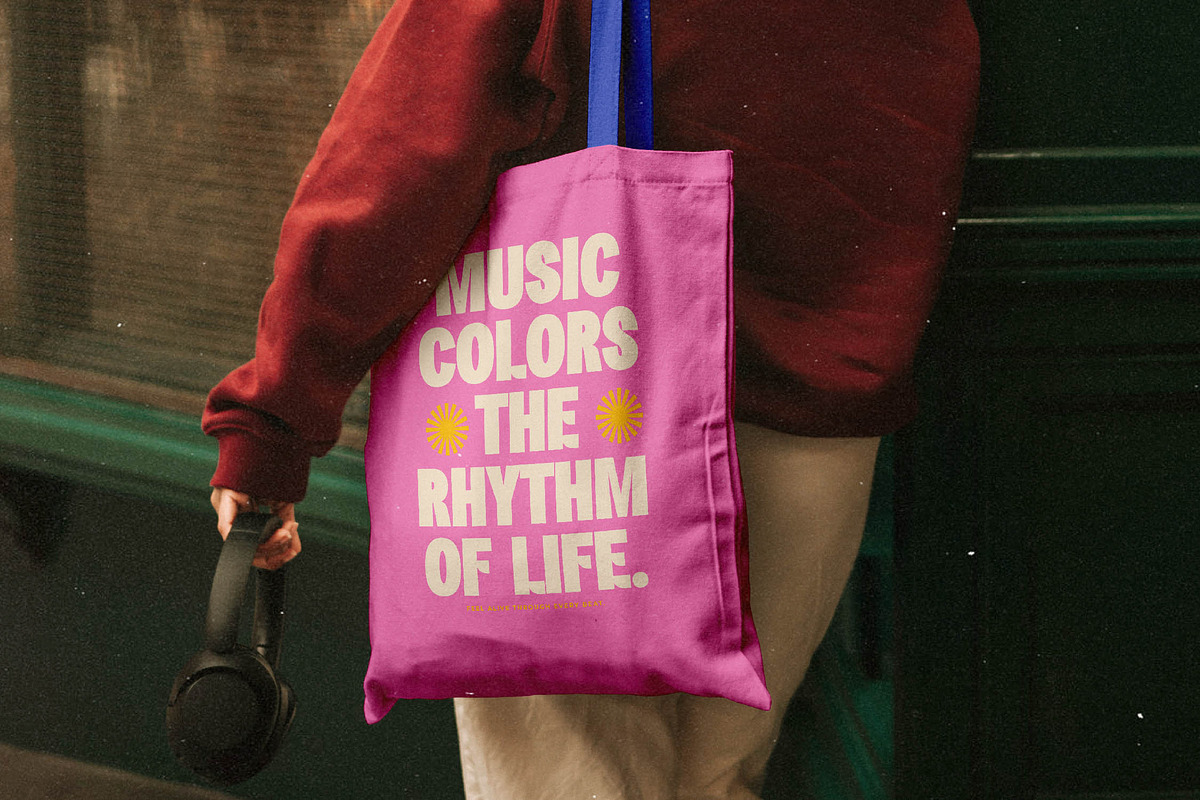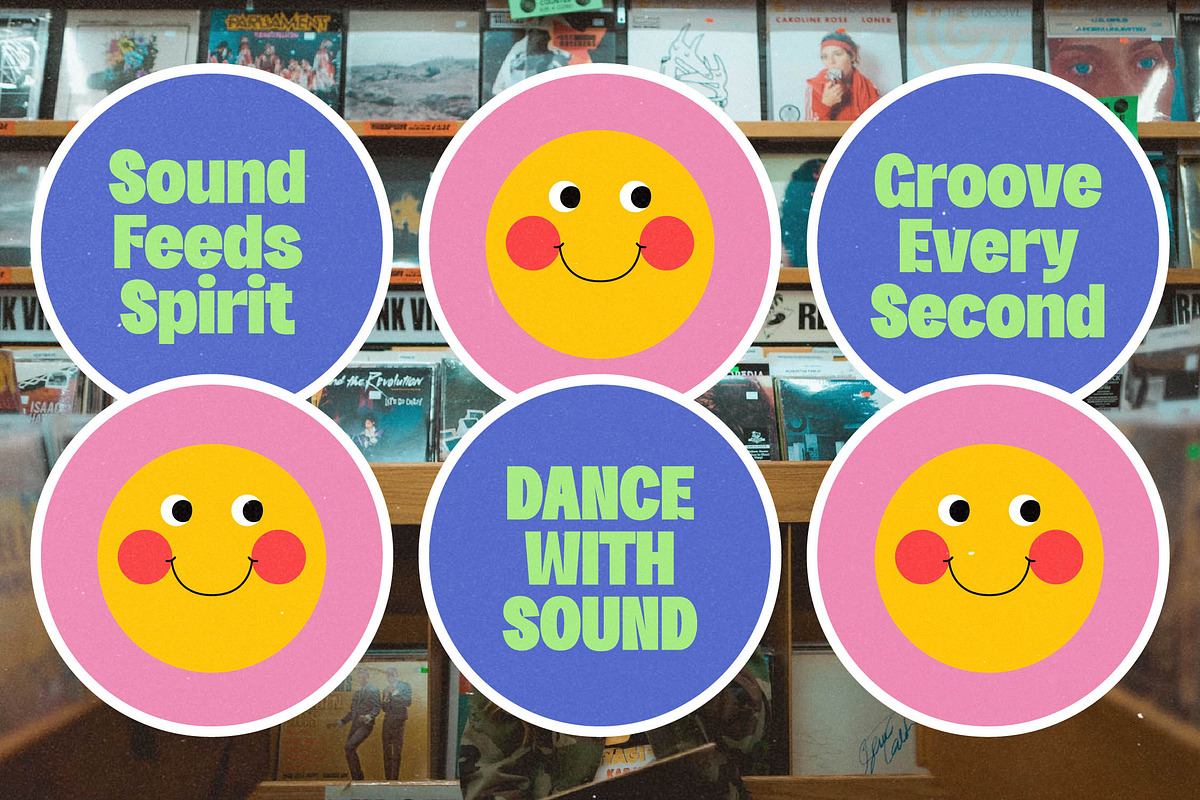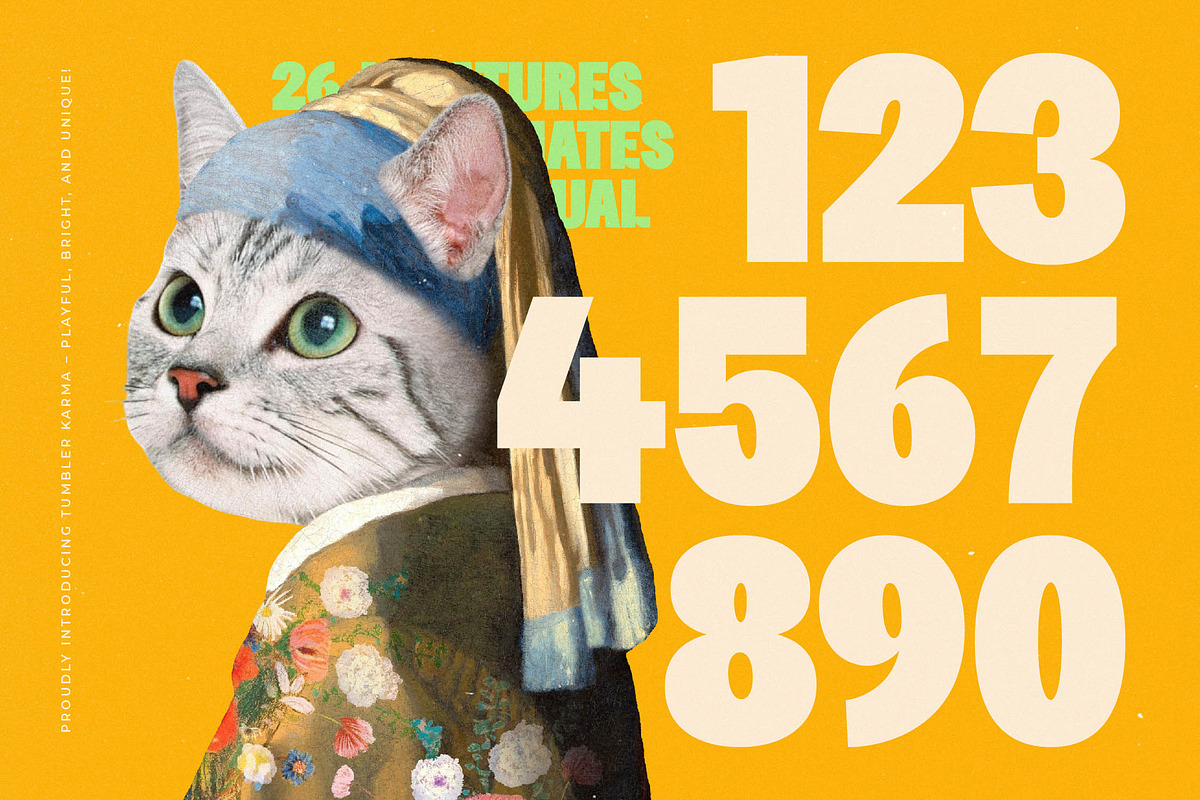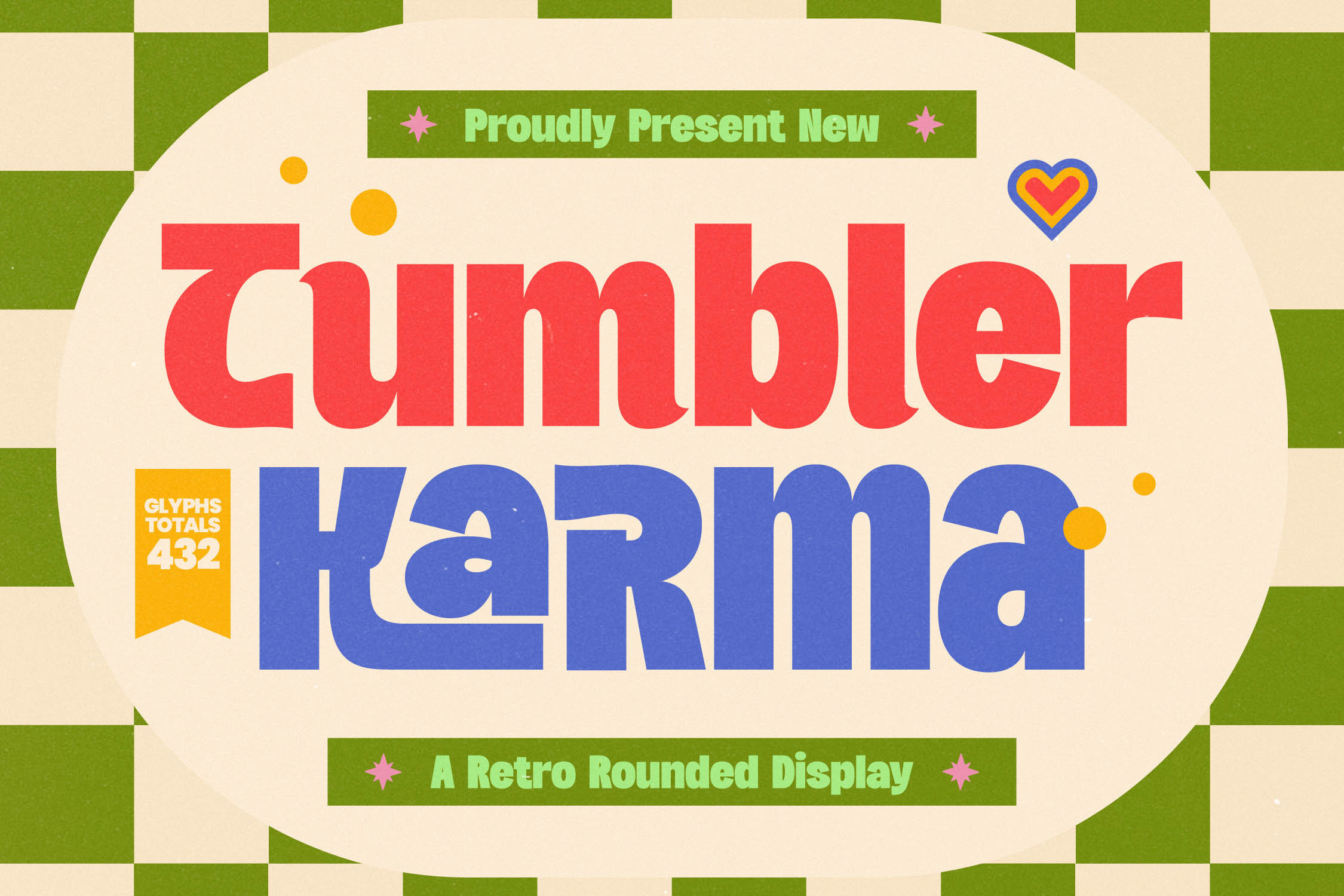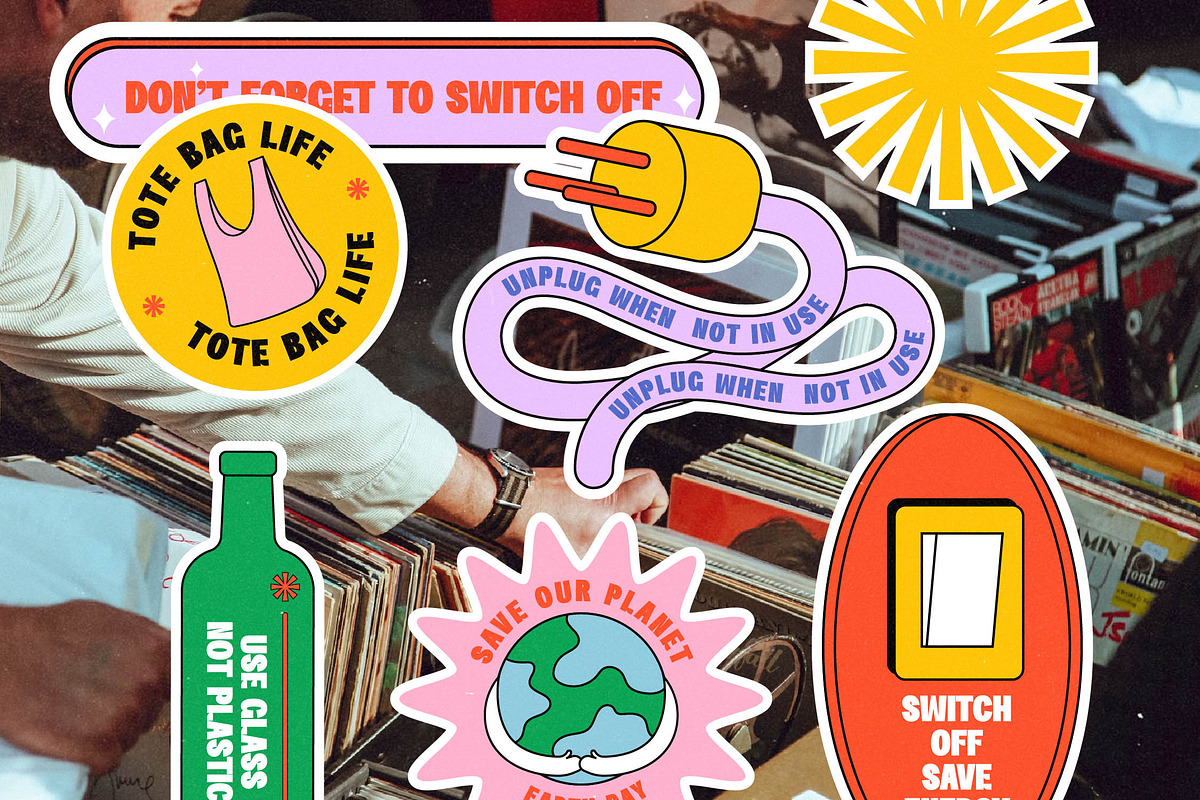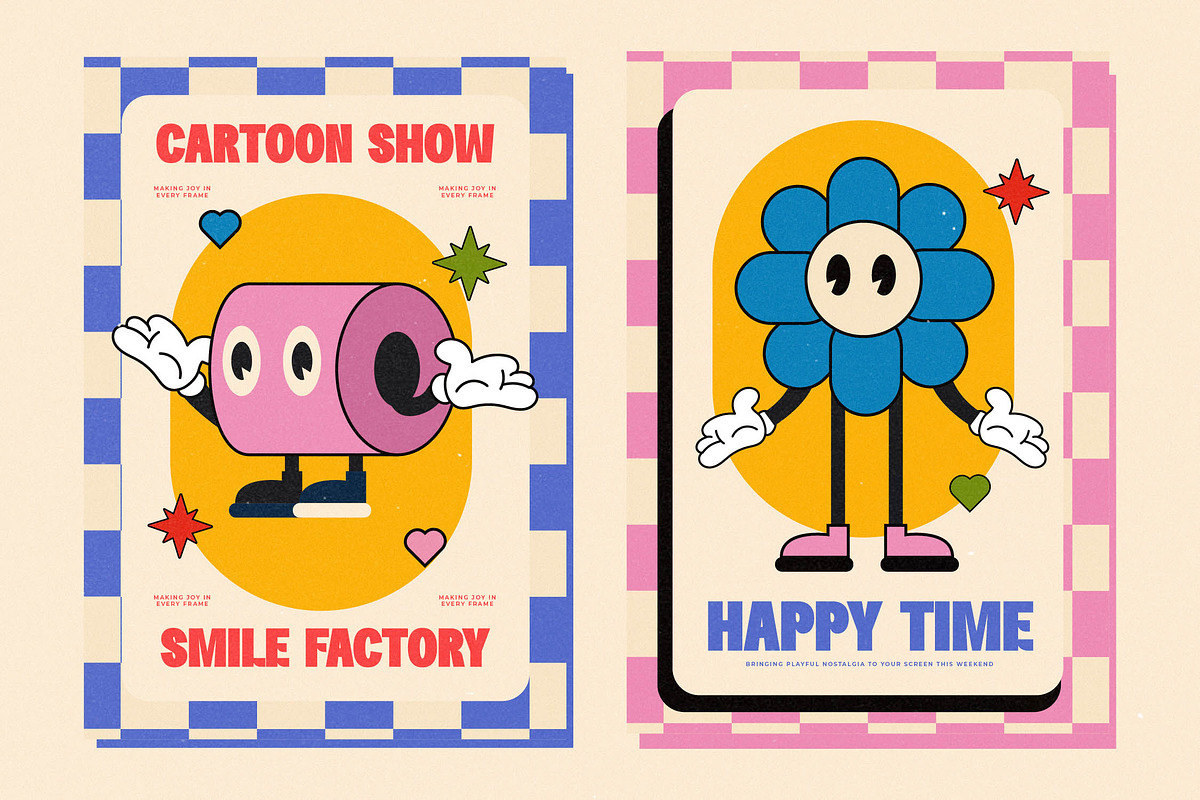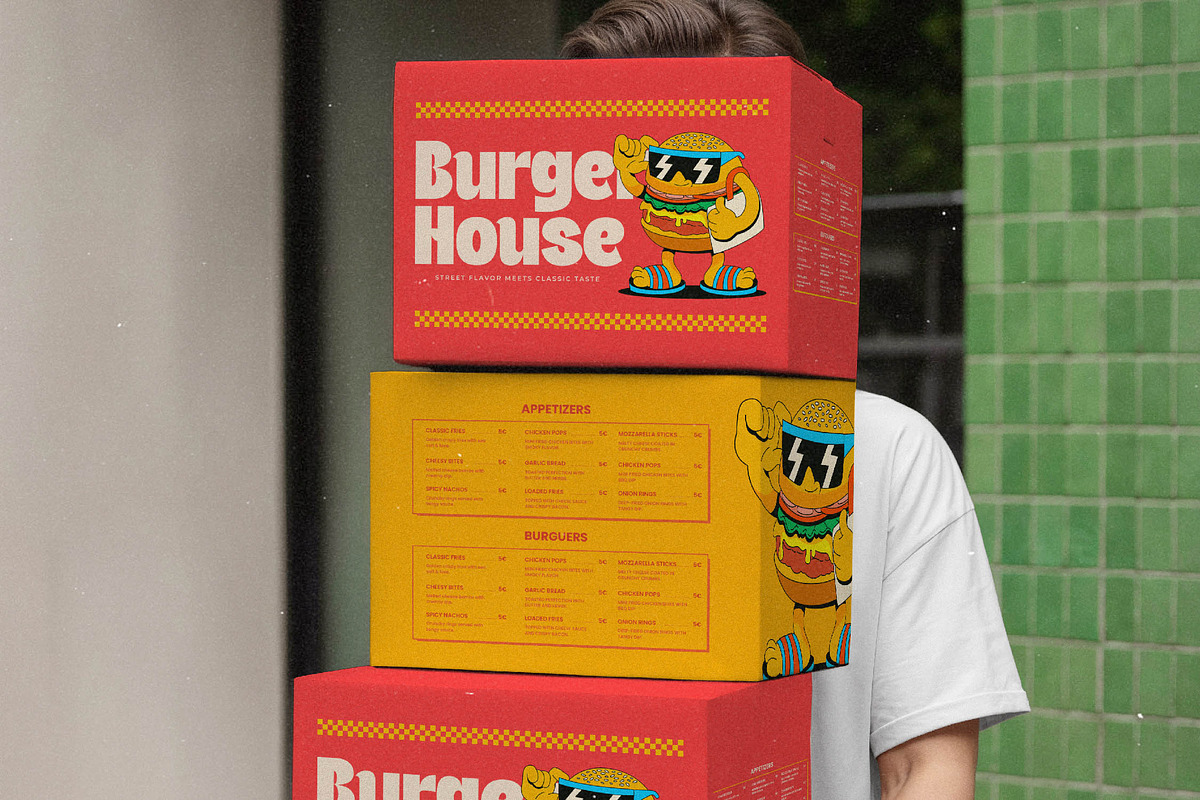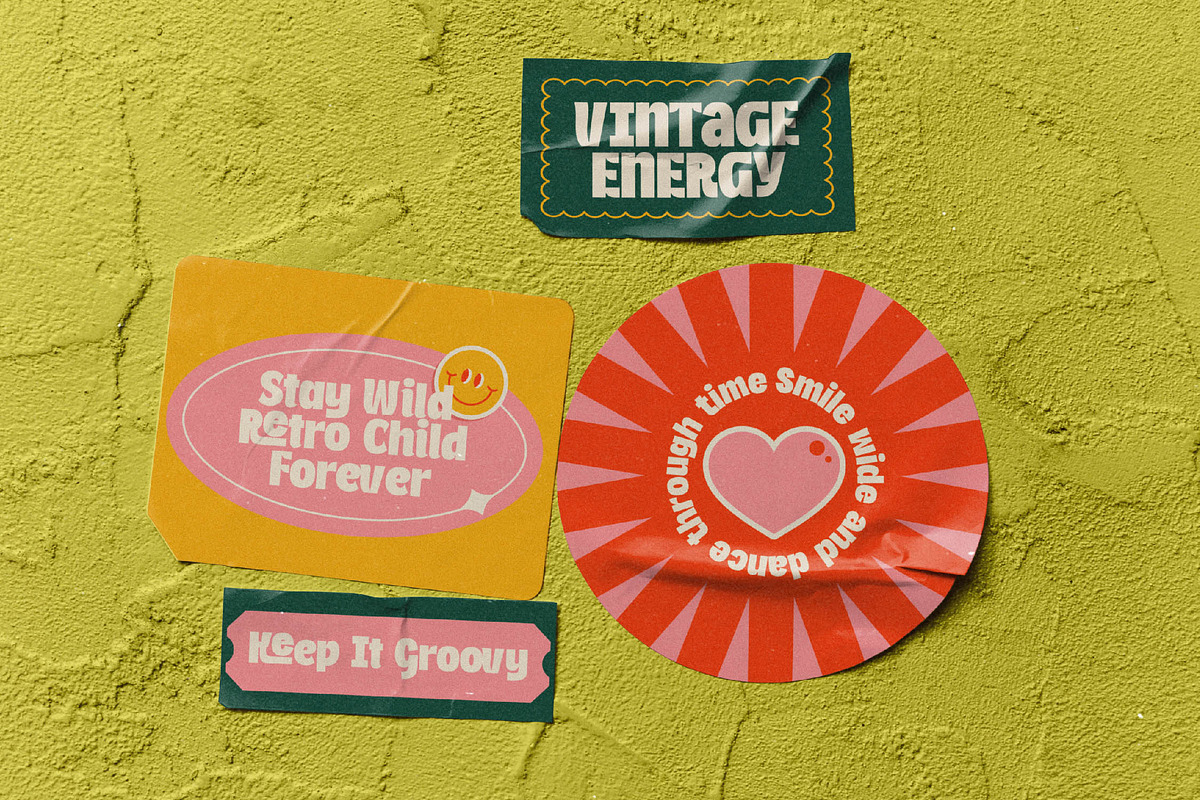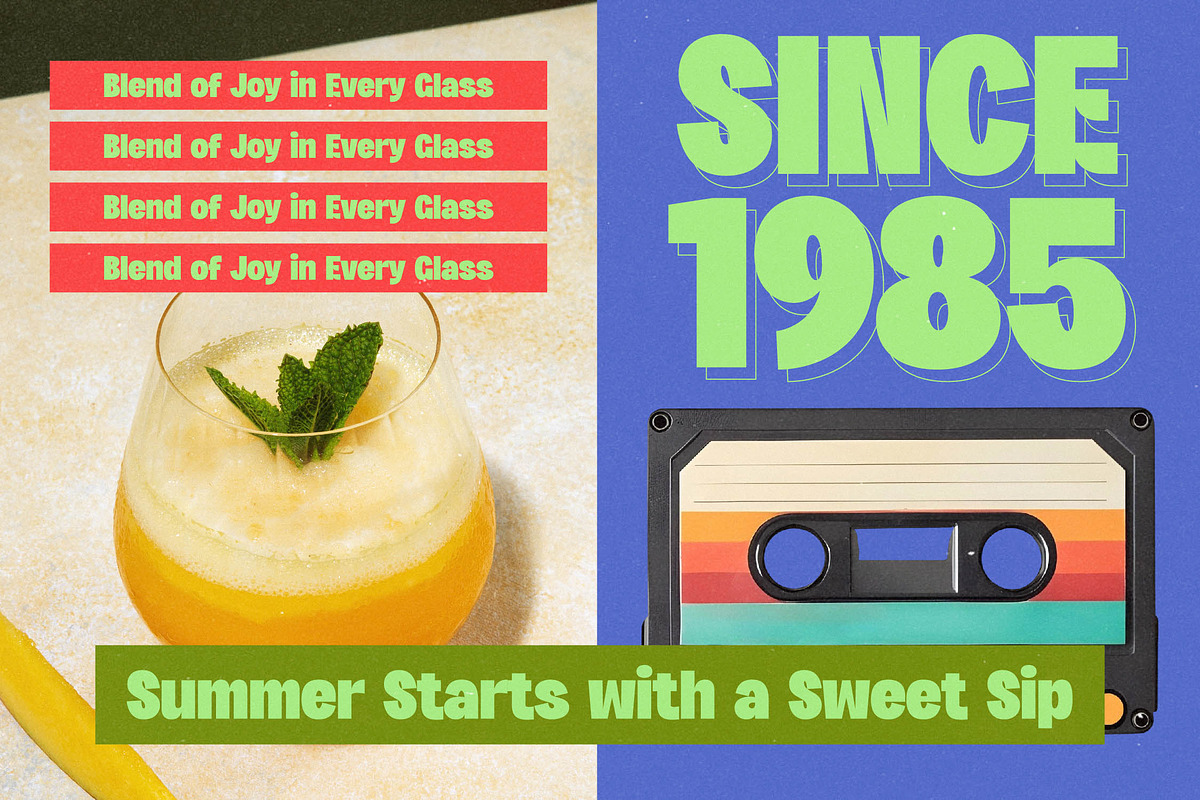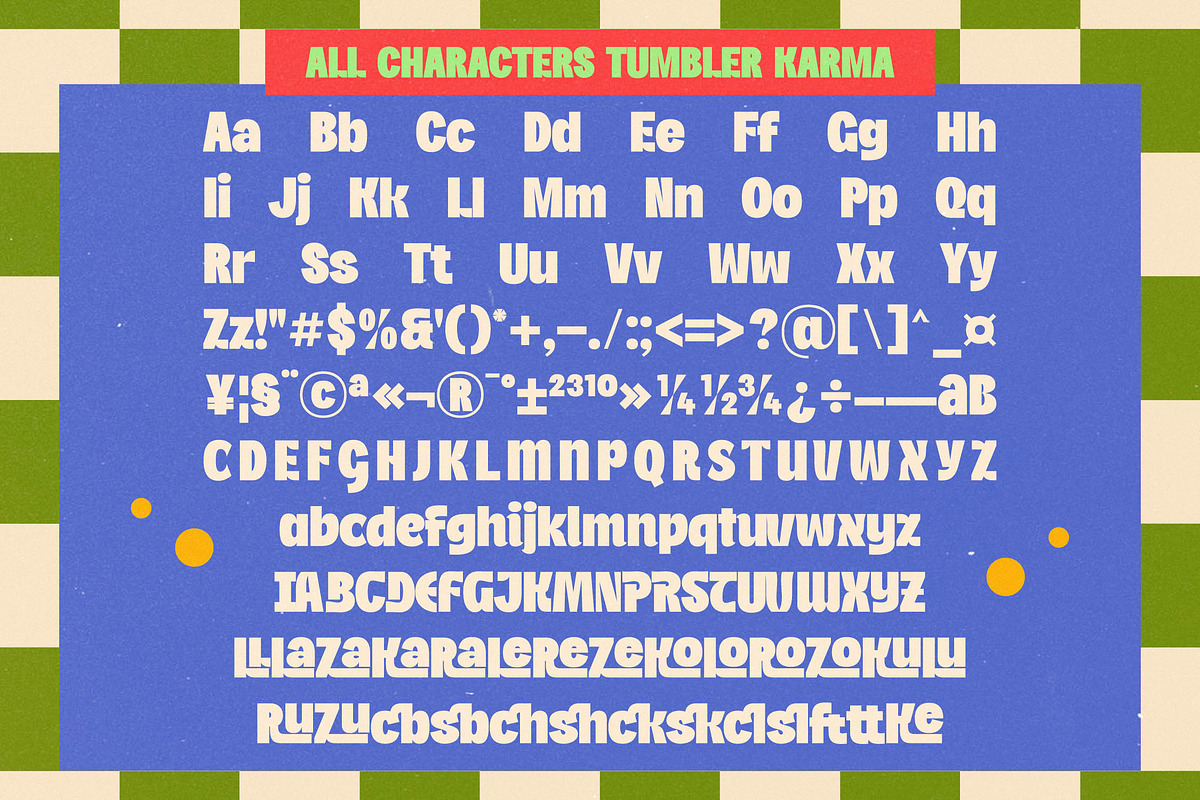
Tumbler Karma Retro Rounded Font
Experience the vibrant energy of Tumbler Karma, a typeface designed to infuse your creative projects with an undeniable sense of joy and retro-cool. This bold display font captures the essence of a playful era while maintaining a clean, contemporary edge that demands attention.
Inspired by the psychedelic curves and funky aesthetics of the 1970s, this font draws from vintage posters and groovy record covers. The design balances chunky proportions with soft, rounded terminals to create a visual rhythm that is both nostalgic and refreshingly unique.
With its thick strokes and cheerful demeanor, Tumbler Karma is built for branding impact and expressive editorial font layouts. It functions as a high-personality modern serif display alternative, offering a soft yet commanding presence that works perfectly for luxury typography and quirky high-contrast serif styles.
Staying ahead of the modern serif trend, this typeface leans into the current obsession with character-driven typography and soft-edge aesthetics. It is one of those essential editorial display fonts that bridge the gap between vintage nostalgia and futuristic playfulness, making it a staple for current design waves.
This versatile typeface is the ultimate choice for standout logo design and bold branding identities. Whether you are working on vibrant packaging, artistic editorial layouts, or even a contemporary wedding suite, its bold weight ensures high visibility in fashion magazines and social media graphics.
The font package is loaded with over 400 glyphs, including a wide array of unique ligatures and stylistic alternates to customize your text. It also features expansive swashes for a decorative touch, alongside comprehensive multilingual support and international characters to ensure your message reaches a global audience.
Ligatures and Alternative Style Stylistic Set